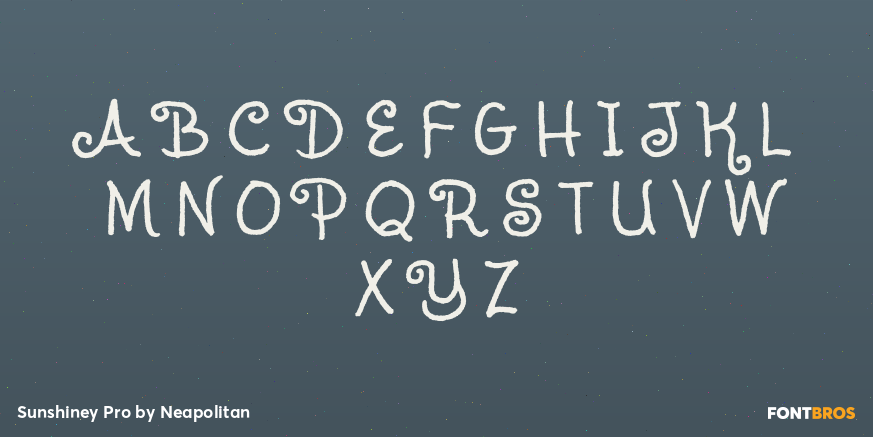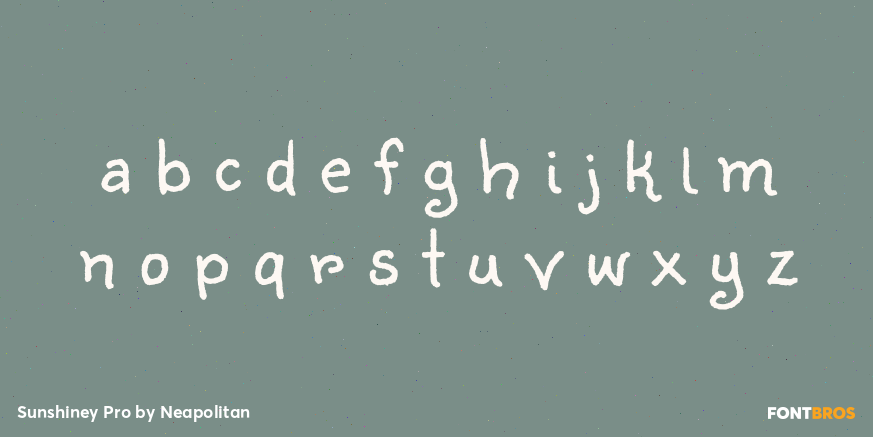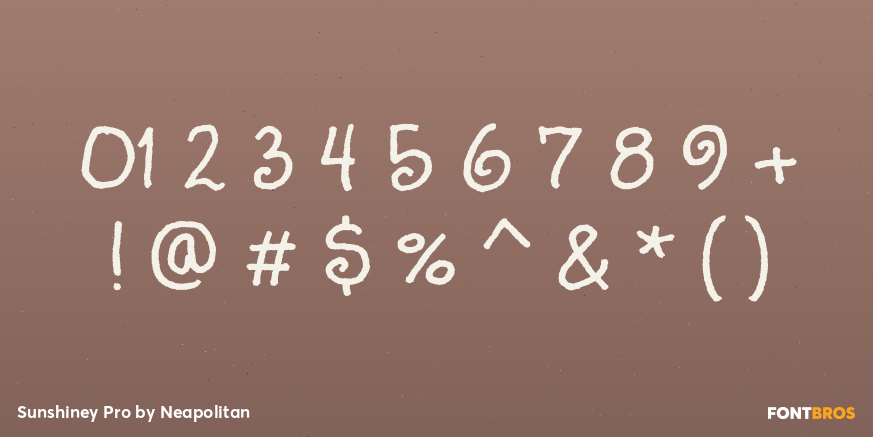
Sunshiney Pro
Font Family by Neapolitan
Is your website a little weary? Is your blog a bit boggy? Brighten them up with Sunshiney, a little a ray of hand-crafted goodness by Squid! This happy little font is sure to lighten up the dreariest of domains or the frumpiest of facebook pages. Happy, happy!